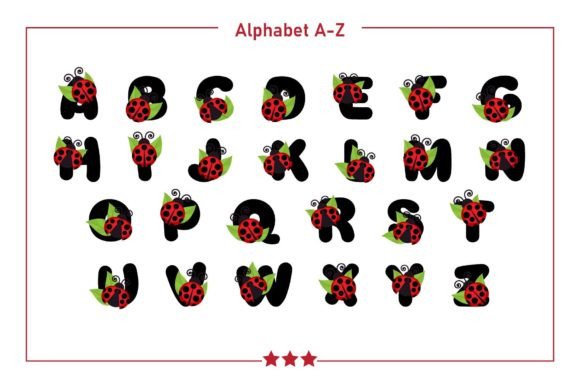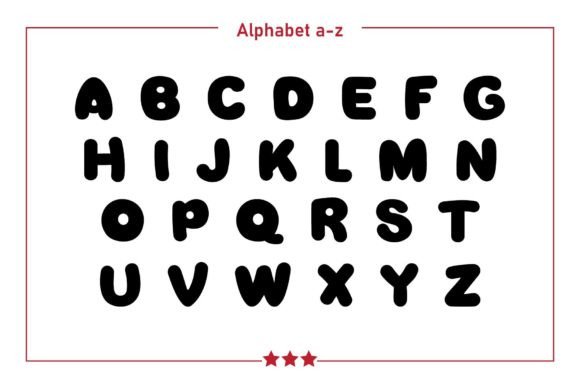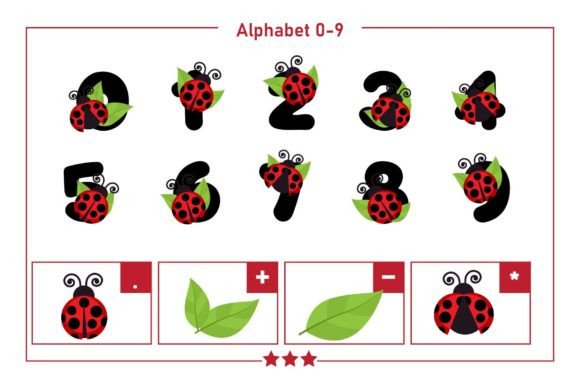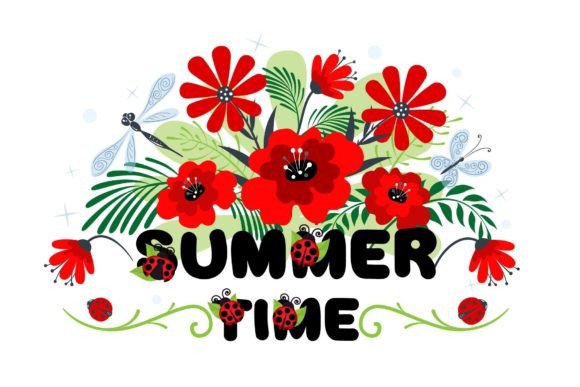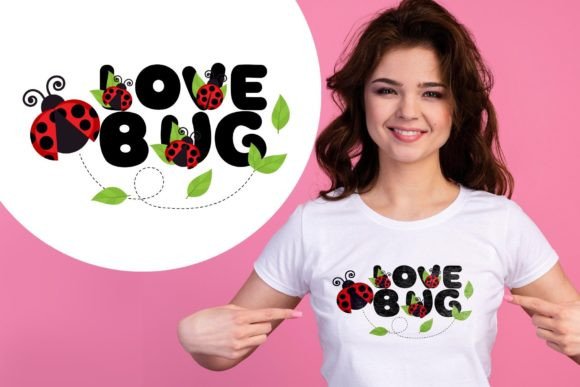
The Cute Ladybug Font: A Delightful Addition to Your Design Arsenal
Have you ever been in the middle of a design project, and suddenly, you’re stuck on finding the perfect font? I recall a recent experience where I was working on a whimsical invitation for a friend’s garden party. The design was almost complete, but something was missing – a font that would capture the playful and charming essence of the event. That’s when I stumbled upon the Cute Ladybug Font, and it instantly became the star of the show!
First Impressions: A Love at First Sight
The Cute Ladybug Font is a color font designed in a striking, cute, and fun style. Its authentic feel had me hooked from the very beginning. I fell in love with its charming and delightful appearance, which made me excited to use it in various creative projects. Whether you’re designing gorgeous invitations, beautiful stationary art, eye-catching social media posts, or cute greeting cards, this font is sure to make your work stand out.
- ✨ Unique and playful design that adds a touch of whimsy to any project
- 🎨 Beautiful color variations to match your brand or project’s color scheme
The Story Behind Cute Ladybug Font
The Cute Ladybug Font was designed with the intention of creating a charming and delightful font that would bring a touch of whimsy to any design project. The designer aimed to craft a font that would be both fun and authentic, making it perfect for a wide range of creative applications.